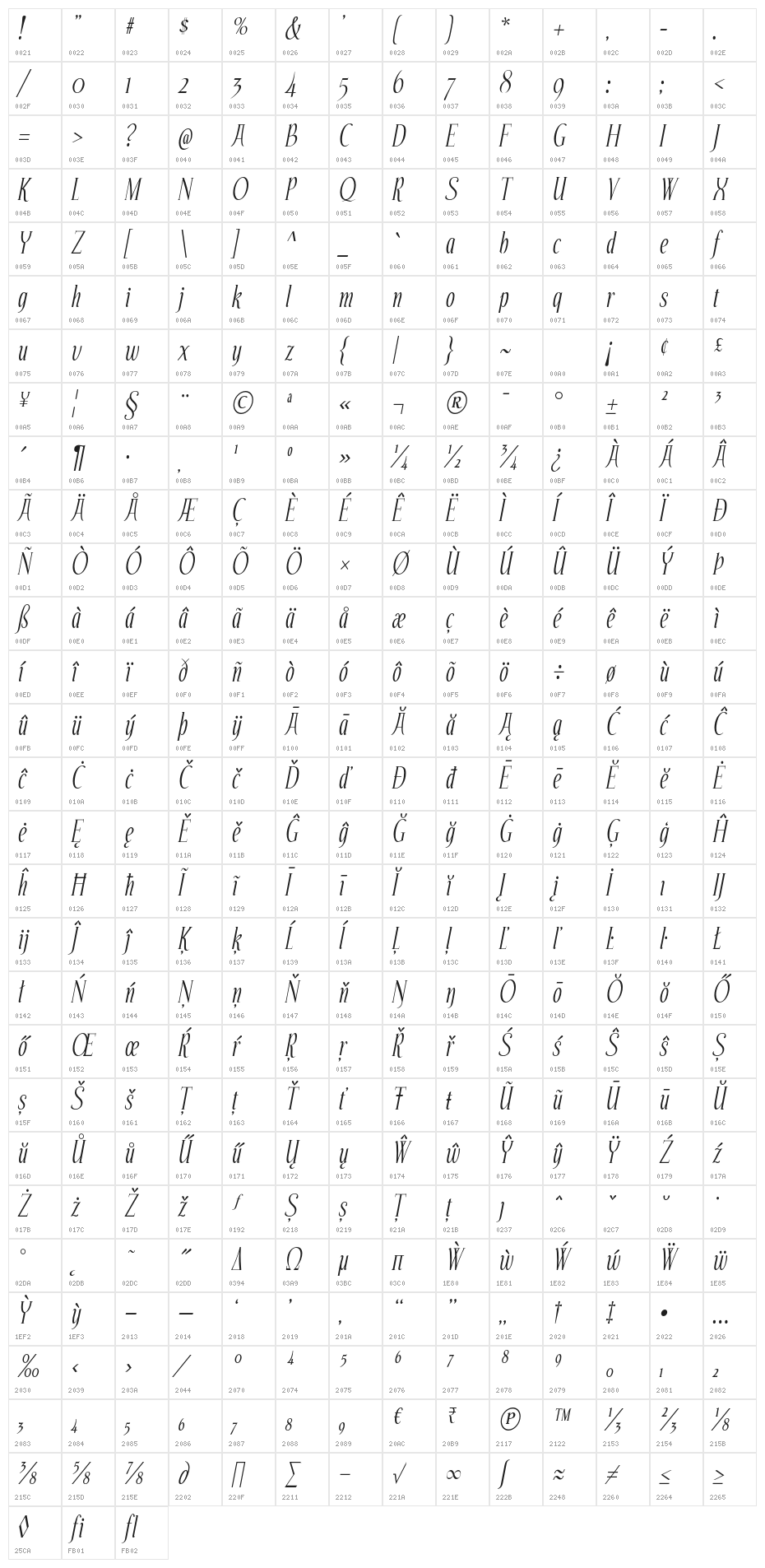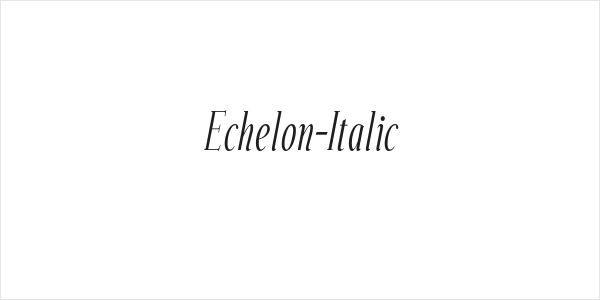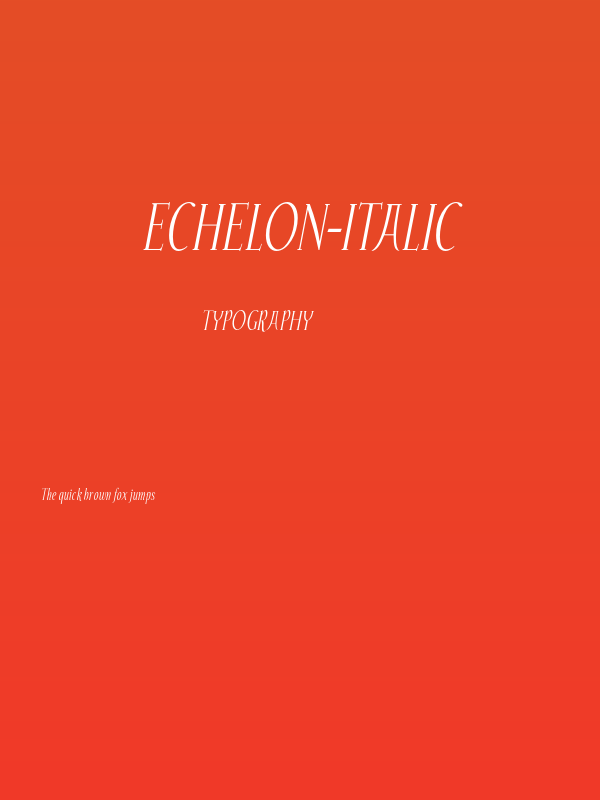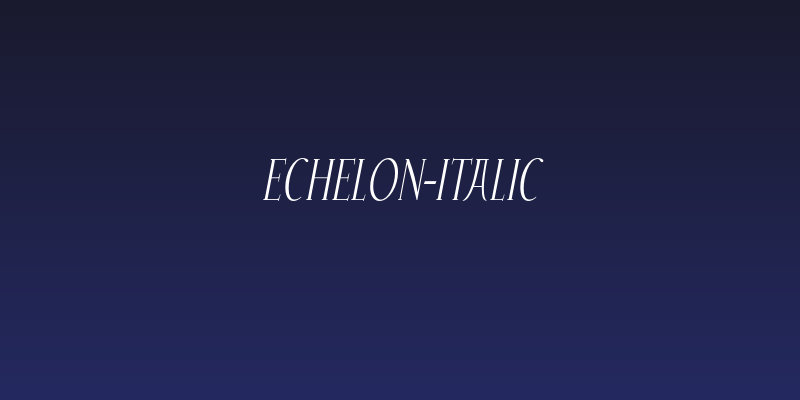
Echelon-Italic Font
Echelon-Italic Description
This font exhibits a sophisticated and elegant style with a distinct italic slant, giving it a dynamic and fluid appearance. The characters are elongated with a graceful curvature, particularly noticeable in the uppercase letters. The strokes are moderately thick, providing a balanced contrast that enhances readability while maintaining an artistic flair. The lowercase letters mirror the elegance of the uppercase, with smooth transitions and a consistent flow. The numerals are stylishly crafted, complementing the overall aesthetic. Special characters are designed with the same attention to detail, ensuring uniformity across the set. This font is ideal for projects that require a touch of sophistication and elegance.
| Proposed Projects | Ideal for wedding invitations, luxury branding, editorial design, and elegant signage. |